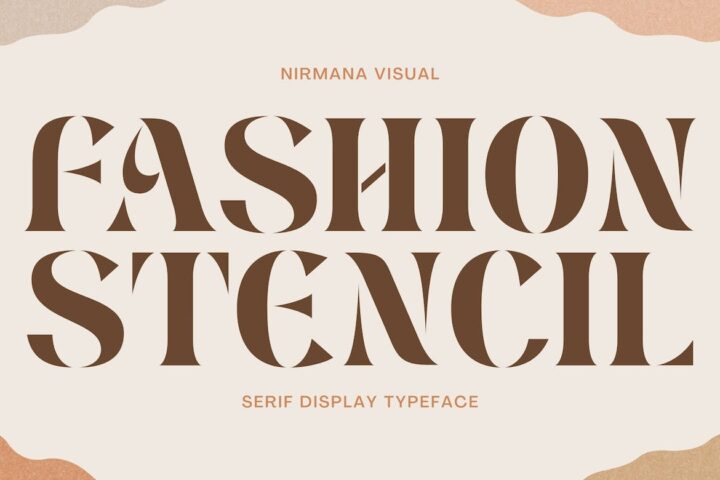
Fashion Stencil – Logo Font
Fashion Stencil , contemporary of Serif font,
Fashion Stencil offers beautiful typographic harmony for a diversity of design projects, including logos & branding, social media posts, advertisements & product designs.